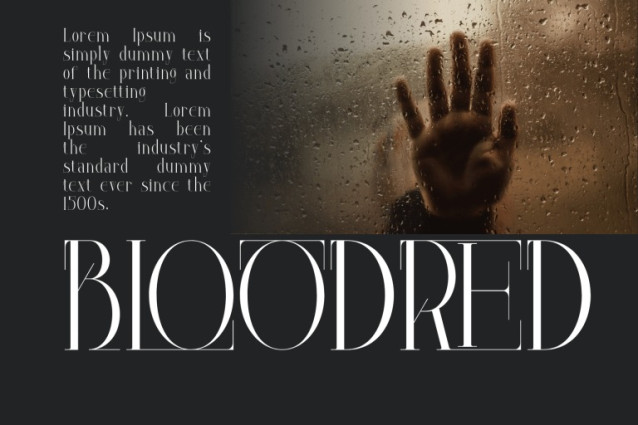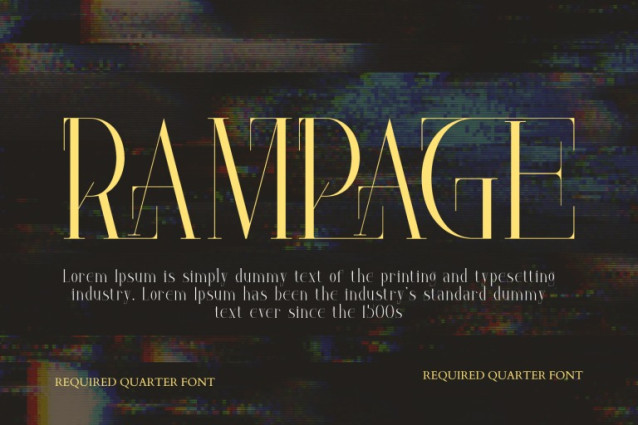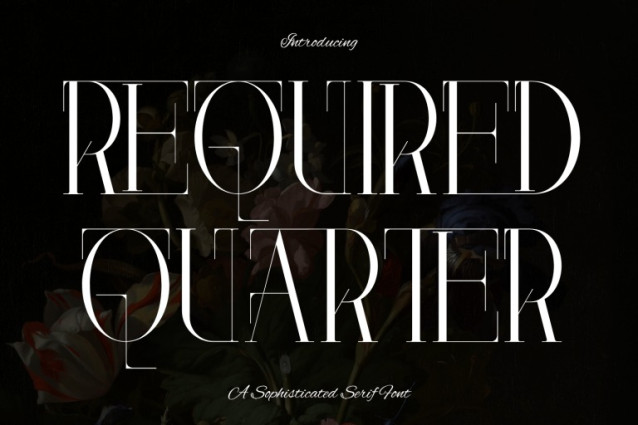
REQUIRED QUARTER FONT
REQUIRED QUARTER – DIDONE FONT is a luxury condensed serif display font inspired by classic Didone typography and high-end editorial design. Featuring tall elegant proportions, dramatic contrast, and delicate hairline details, this typeface brings a refined and sophisticated presence to any composition. Its graceful serif structure and timeless character make REQUIRED QUARTER perfect for fashion magazines, luxury branding, beauty packaging, premium logos, book covers, and elegant poster designs.
🔤Features:
Uppercase & Lowercase Letters
Around 100 Special Ligatures & Alternates
Accented Characters for multilingual support
🔤About 100 ligatures combined with Stylistic Alternates Font:
AC AD AL AN AR AS AT AU AV BE CA CE CH CO CT DE DI EA EC ED EE EL EM EN EP ER ES ET FE FO FR GE HA HE HI HO IE IC IL IN IO IR IS IT JU KE LA LE LI LL LO LY MA ME MI NC ND NE NG NO NT NS OC OF OM ON OO OP OR OT OU OW PA PR RA RD RE RI RO RS RT SE SH SI SO SS ST TA TE TH TI TO TR TT UM UN UR VE WI WO